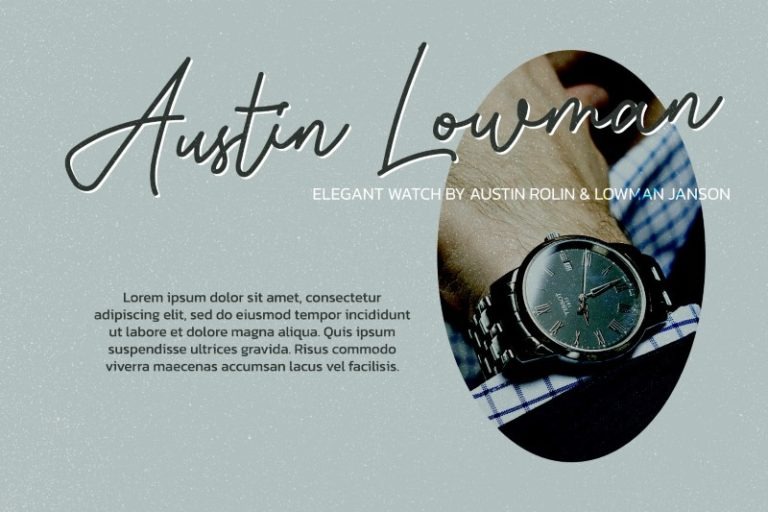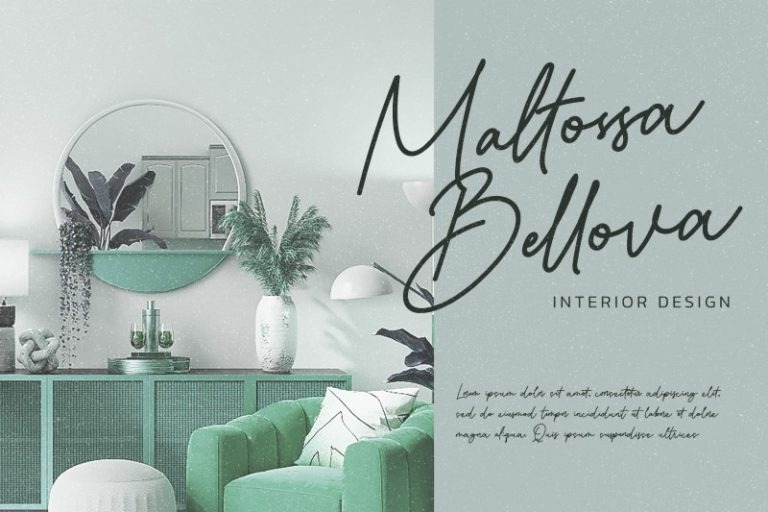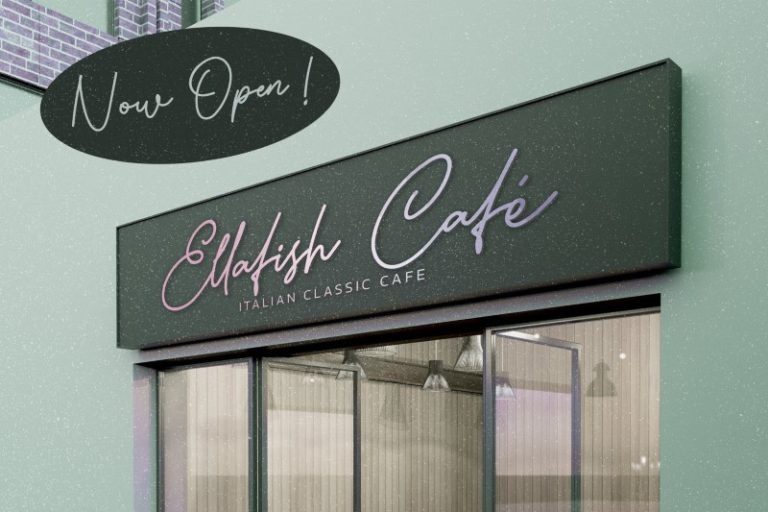
Highpath Signature Font
It’s a minimalist signature script type fonts. Highpath font is a sophistication with its lettering. This font support multi languages to make your brand globally acceptable. It’s a font with simple shapes, making it very suitable to be used on any purposes. A real head-turner for your presentation, designs, branding, quotes, invitation, website illustrations, and much more.